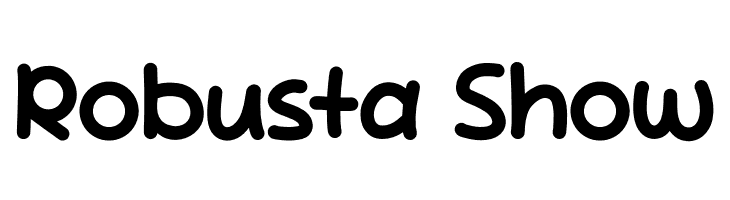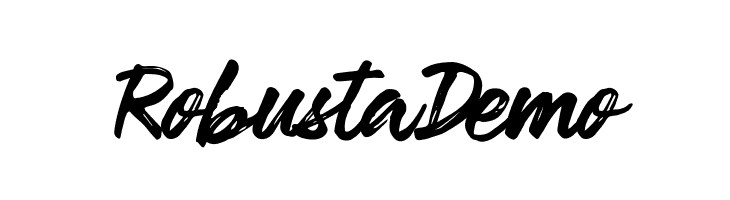
A bold, robust font with strong strokes and elegant curves, ideal for headlines.
A bold, geometric font with a modern and robust design.
A monospaced slab serif font with a mechanical and robust design.
A bold slab serif font with strong, block-like serifs and a robust design.
A bold, geometric font with an industrial and robust design.
A bold, robust font with thick strokes and a strong presence.
A robust slab serif font with a classic yet modern appeal.
A bold, modern sans-serif font with clean, robust letterforms.
A robust slab serif font with strong, block-like serifs and a classic yet modern style.
A robust slab serif font with thick, block-like serifs and consistent stroke width.
A bold and robust slab serif font with strong, block-like serifs.
A bold, geometric font with a modern and robust design.
A bold, geometric font with an industrial, robust aesthetic.
A robust slab serif font with medium contrast and strong serifs.
A robust slab serif font with modern elements and strong, bold strokes.
A modern, extra bold italic sans-serif typeface with a dynamic and robust appearance.
A bold, rounded font with a playful and robust style.
A bold and robust font with strong, thick strokes and a touch of elegance.
A bold, geometric font with a modern and robust design.
A bold, rounded font with a playful and robust appearance.
A bold, geometric font with thick outlines and a futuristic, digital aesthetic.
A bold, italic font with a dynamic and robust style, ideal for impactful designs.
Bold, italic font with slanted, robust letterforms and rounded edges.
A bold, robust font ideal for impactful and commanding designs.
A robust, extra bold sans-serif typeface with a modern and professional look.
A robust, extra bold serif typeface with high contrast and classic elegance.
A robust serif font with a semi-bold weight, offering a classic yet modern appearance.
A robust and elegant serif font with medium weight and balanced proportions.
A bold, left-slanted font with a dynamic and robust style.
A bold, geometric font with a modern and robust appearance.